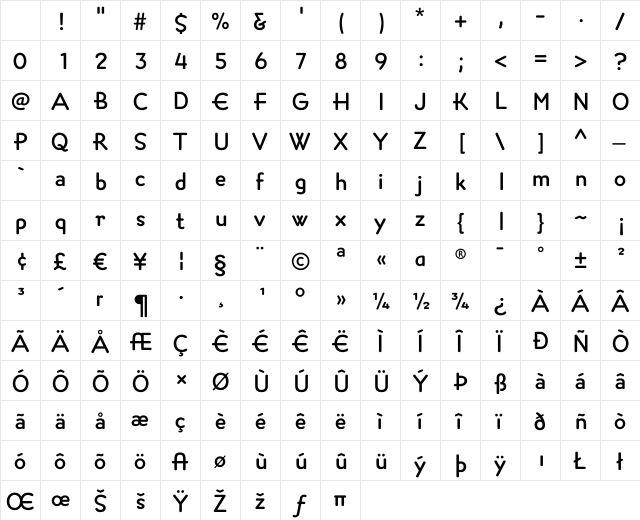
Complete ConcertoRoundedSGA TT Medium glyph index. Displaying only characters natively supported by ConcertoRoundedSGA TT Medium font.
ConcertoRoundedSGA TT softens its letterforms with rounded terminals, giving it an approachable, friendly quality that works well in consumer-facing and digital contexts.
Font Pairing: Pairs well with a rounded or humanist sans for body copy, maintaining the friendly tone without relying on ConcertoRoundedSGA TT to carry extended reading.
Pro Tip: Use ConcertoRoundedSGA TT for UI elements, app interfaces, and anywhere a friendly, approachable tone needs to be maintained without sacrificing clarity.